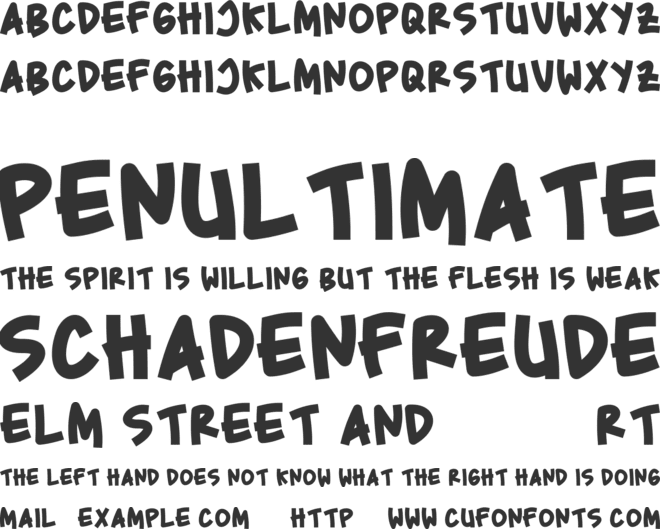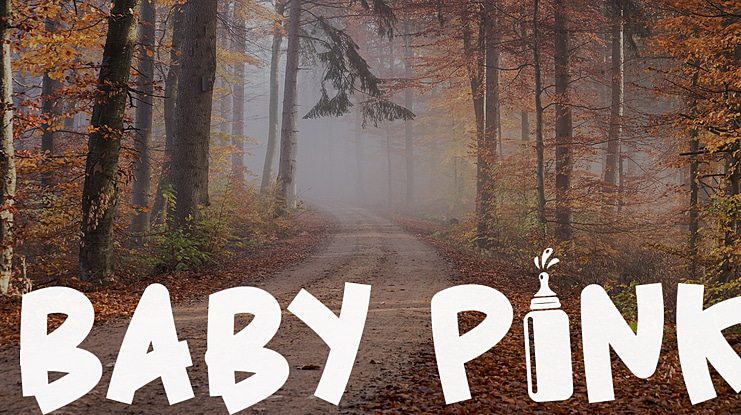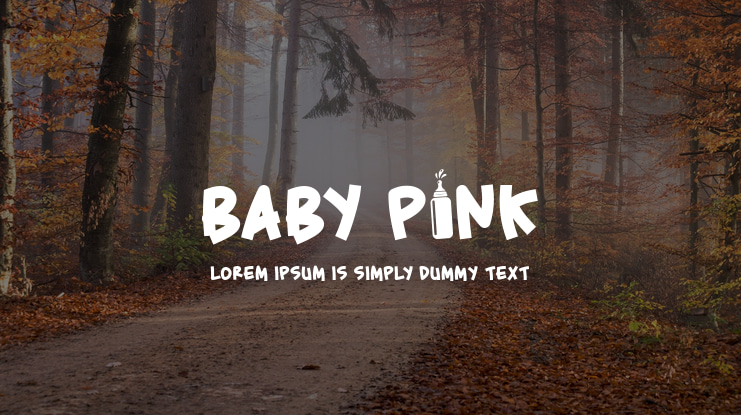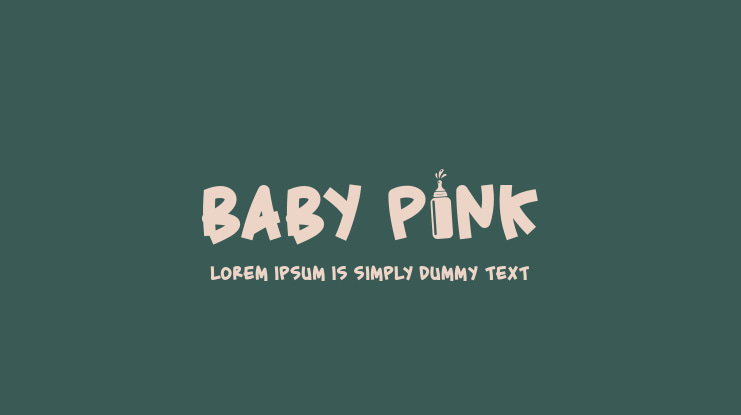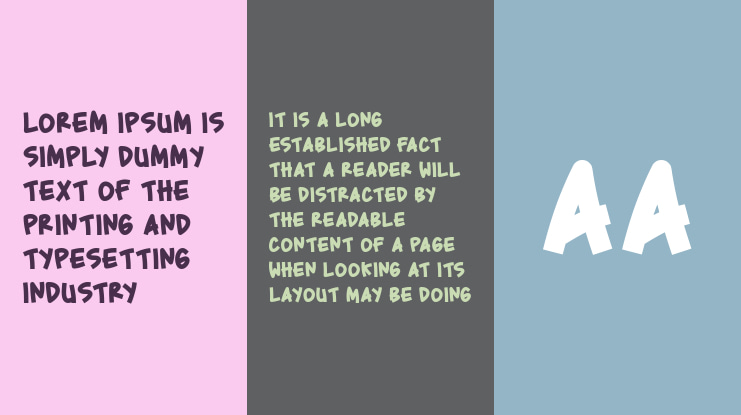
Baby Pink Font
Baby Pink is a cute & adorable display font. This bold, handwritten style font has lots of alternative ligatures to make it really look like your own handwriting. Perfect for your creative projects this season.